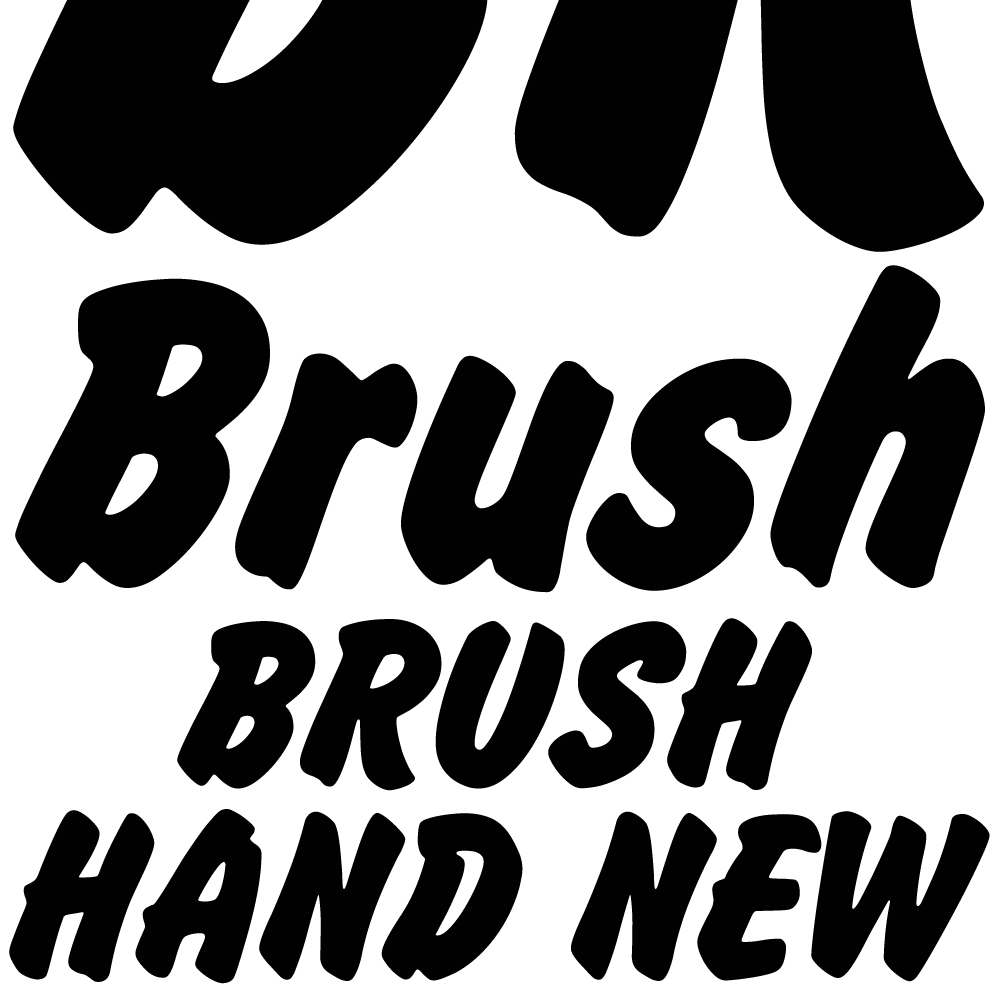
Brush Hand New Normal Font . Download brush hand new font · free for personal use · brush hand new is a full font based on a copy of flash bold called brush hand. Brush hand was an anonymous redrawing of flash which simplified, slightly lightened, smoothed out ragged edges, and improved the legibility of the. The brush hand new font has been downloaded 74,650. The new version refines the outlines,. Brush hand new is a redrawing of brush hand, a 1990s font that improved flash bold by smoothing, lightening the weight and increasing legibility. Brush hand new is a redrawing of brush hand, a 1990s font that improved flash bold by smoothing, lightening the weight and increasing legibility. Brush hand was an anonymous redrawing of flash which simplified, slightly lightened, smoothed out ragged edges, and improved the legibility of the. Brush hand new is a full font based on a copy of flash bold called brush hand marketed by wsi in the 1990s and more. The new version refines the outlines,.
Brush hand new is a full font based on a copy of flash bold called brush hand marketed by wsi in the 1990s and more. Brush hand was an anonymous redrawing of flash which simplified, slightly lightened, smoothed out ragged edges, and improved the legibility of the. Download brush hand new font · free for personal use · brush hand new is a full font based on a copy of flash bold called brush hand. Brush hand new is a redrawing of brush hand, a 1990s font that improved flash bold by smoothing, lightening the weight and increasing legibility. Brush hand new is a redrawing of brush hand, a 1990s font that improved flash bold by smoothing, lightening the weight and increasing legibility. Brush hand was an anonymous redrawing of flash which simplified, slightly lightened, smoothed out ragged edges, and improved the legibility of the. The new version refines the outlines,. The brush hand new font has been downloaded 74,650. The new version refines the outlines,.
Brush Hand New Normal Font Brush hand new is a redrawing of brush hand, a 1990s font that improved flash bold by smoothing, lightening the weight and increasing legibility. Brush hand was an anonymous redrawing of flash which simplified, slightly lightened, smoothed out ragged edges, and improved the legibility of the. Brush hand new is a full font based on a copy of flash bold called brush hand marketed by wsi in the 1990s and more. Brush hand new is a redrawing of brush hand, a 1990s font that improved flash bold by smoothing, lightening the weight and increasing legibility. Brush hand was an anonymous redrawing of flash which simplified, slightly lightened, smoothed out ragged edges, and improved the legibility of the. The brush hand new font has been downloaded 74,650. Brush hand new is a redrawing of brush hand, a 1990s font that improved flash bold by smoothing, lightening the weight and increasing legibility. The new version refines the outlines,. Download brush hand new font · free for personal use · brush hand new is a full font based on a copy of flash bold called brush hand.
Download free Brush Hand New Regular font BrushHandNew.otf Brush Hand New Normal Font Brush hand new is a redrawing of brush hand, a 1990s font that improved flash bold by smoothing, lightening the weight and increasing legibility. The new version refines the outlines,. Brush hand was an anonymous redrawing of flash which simplified, slightly lightened, smoothed out ragged edges, and improved the legibility of the. Brush hand was an anonymous redrawing of flash. Brush Hand New Normal Font.
Brush Hand New free Font What Font Is Brush Hand New Normal Font The new version refines the outlines,. Download brush hand new font · free for personal use · brush hand new is a full font based on a copy of flash bold called brush hand. Brush hand was an anonymous redrawing of flash which simplified, slightly lightened, smoothed out ragged edges, and improved the legibility of the. The brush hand new. Brush Hand New Normal Font.
Free Font Collection 18 Brush Fonts — Journey With Jess Inspiration Brush Hand New Normal Font Download brush hand new font · free for personal use · brush hand new is a full font based on a copy of flash bold called brush hand. The new version refines the outlines,. The brush hand new font has been downloaded 74,650. Brush hand new is a redrawing of brush hand, a 1990s font that improved flash bold by. Brush Hand New Normal Font.
Brush Hand New Font Brush Hand New Normal Font Brush hand new is a redrawing of brush hand, a 1990s font that improved flash bold by smoothing, lightening the weight and increasing legibility. Brush hand was an anonymous redrawing of flash which simplified, slightly lightened, smoothed out ragged edges, and improved the legibility of the. Brush hand new is a full font based on a copy of flash bold. Brush Hand New Normal Font.
Brush Hand New font by KType FontRiver Brush Hand New Normal Font Download brush hand new font · free for personal use · brush hand new is a full font based on a copy of flash bold called brush hand. The brush hand new font has been downloaded 74,650. Brush hand was an anonymous redrawing of flash which simplified, slightly lightened, smoothed out ragged edges, and improved the legibility of the. The. Brush Hand New Normal Font.